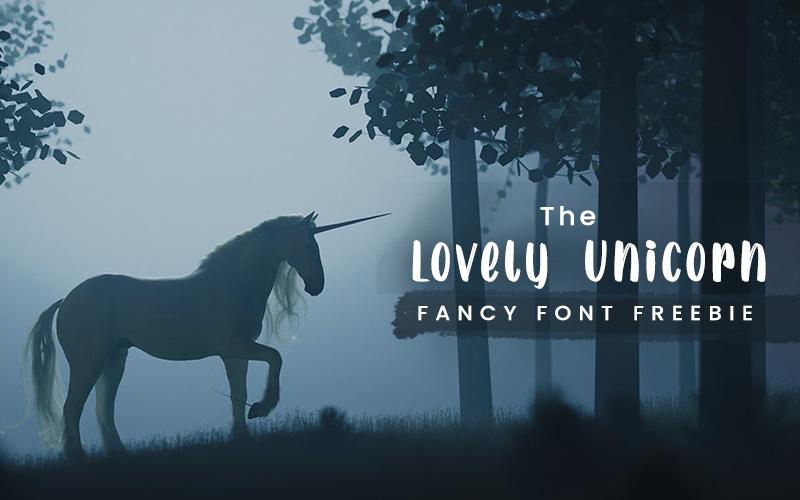
The Lovely Unicorn Fancy Font — Freebie
Introduce a touch of magic to your designs with The Lovely Unicorn Fancy Font Freebie. This elegant, whimsical display font features delicate curves and graceful strokes that bring invitations, greeting cards, posters, and social media graphics to life.
Features
- Whimsical, decorative letterforms with delicate curves and graceful strokes
- Ideal for invitations, branding, social posts, packaging, and more
- Extensive character set: uppercase, lowercase, numbers, and special characters